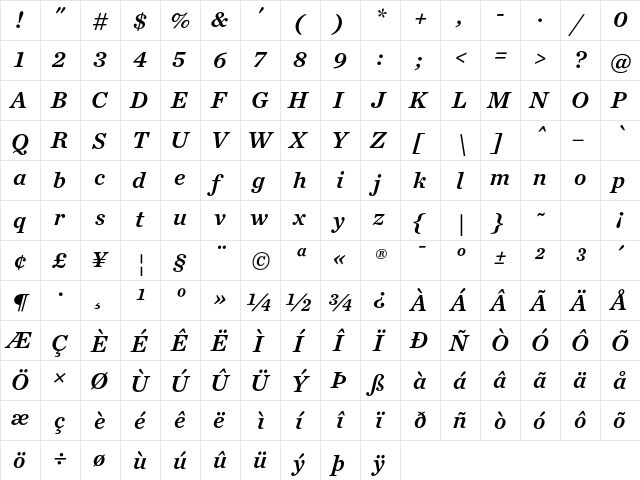
Chronicle Text G2 Semibold Italic
| Foundry | Hoefler & Frere-Jones |
| Designer | Hoefler & Frere-Jones |
Design Context for Chronicle Text G2 Typeface
Chronicle Text G2 offers clean, dependable letterforms without strong stylistic allegiance, making it a practical choice for designers who need flexibility. The slanted form adds forward momentum and visual energy. Its bold stroke weight gives it real presence on the page.
Pro Tip: Use Chronicle Text G2 for emphasis, pull quotes, and subheadings where its slanted energy can add rhythm to the layout.